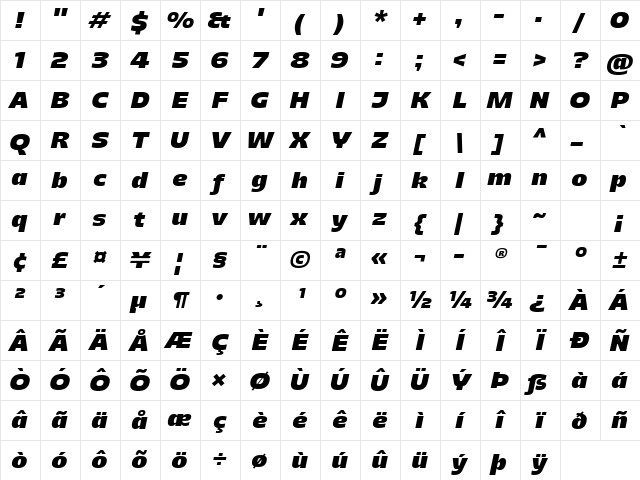
Majoris is a composed and adaptable typeface that performs quietly and consistently across a wide range of design contexts. The slanted form adds forward momentum and visual energy.
Pro Tip: Use Majoris for emphasis, pull quotes, and subheadings where its slanted energy can add rhythm to the layout.